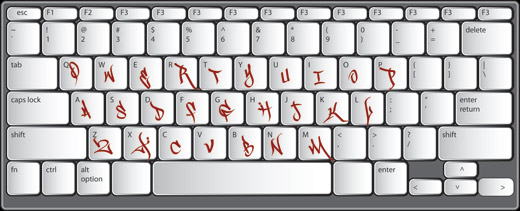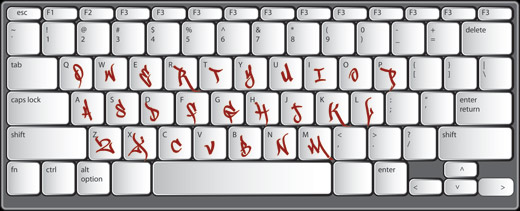
Scrawler Third™
EXCLUSIVE! - All new Graffiti Font™
This addition to the Scawler family features a wild alphabet in two widths. Use this font with the Original Scawler or on its own. Like the original these letters were extracted from a zillion tags. The rough marker texture is preserved.
Scrawler 3rd Font Poster
The Scrawler Third™ font is made up of alternate glyphs from the original Scrawler™ font. It is intended as an expansion of the original font created to extend the range of available characters. This font can also function fairly well on it's own & can serve as a cheaper alternative to the original Scrawler™.